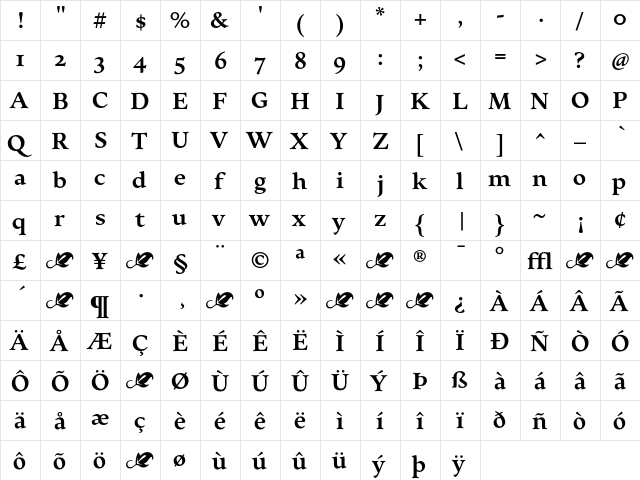
Elmhurst Bold
Design Context for Elmhurst Typeface
Elmhurst is a composed and adaptable typeface that performs quietly and consistently across a wide range of design contexts. The heavy weight commands attention and anchors typographic hierarchies.
Pro Tip: Pair Elmhurst with a font of contrasting weight or personality to build a more expressive typographic hierarchy.